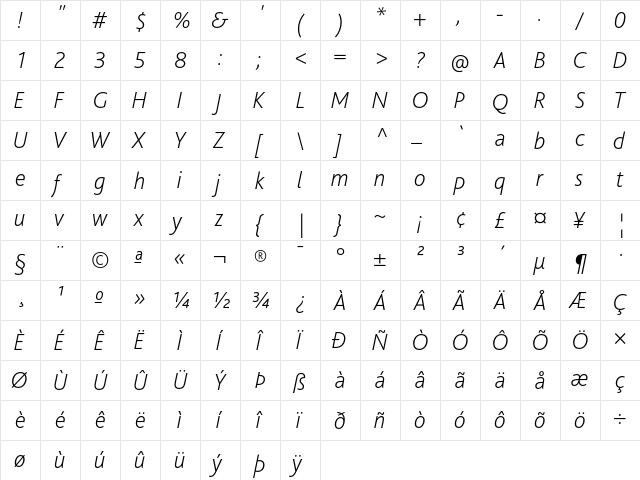
Bliss Pro ExtraLight Italic Font Preview
| Style | ExtraLight Italic |
| Foundry | JT Types Ltd, |
Design Context for Bliss Pro Typeface
Bliss Pro takes a measured approach to typography — its balanced proportions and neutral character make it a reliable workhorse for both digital and print work. The dynamic lean of this cut emphasises speed and emphasis in any layout. The delicate stroke weight brings airiness and refinement to layouts.
Pro Tip: Try Bliss Pro for annotation and caption copy alongside an upright companion — the contrast in angle creates a dynamic but ordered typographic system.